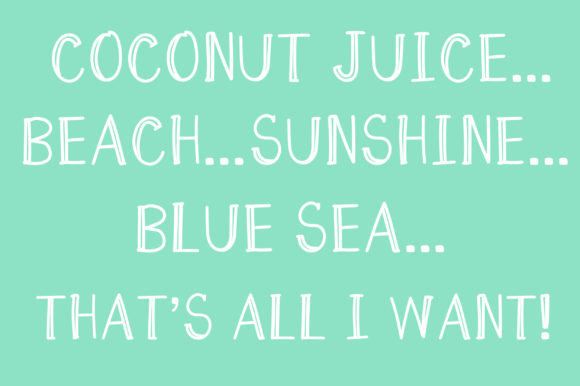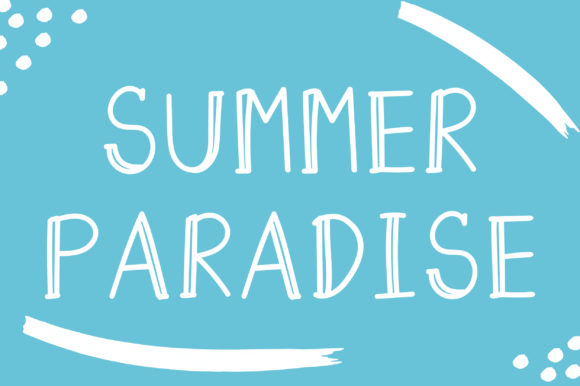
Coco Hawaiian Font
db-ku.com - Script & Handwritten -- Coco Hawaiian is a cheerful handwritten font. It will elevate a wide range of design projects to the highest level, be it branding, headings, wedding designs, invitations, signatures, logos, labels, and much more!